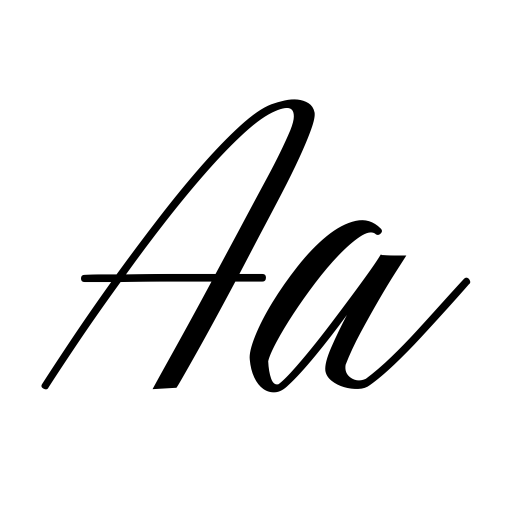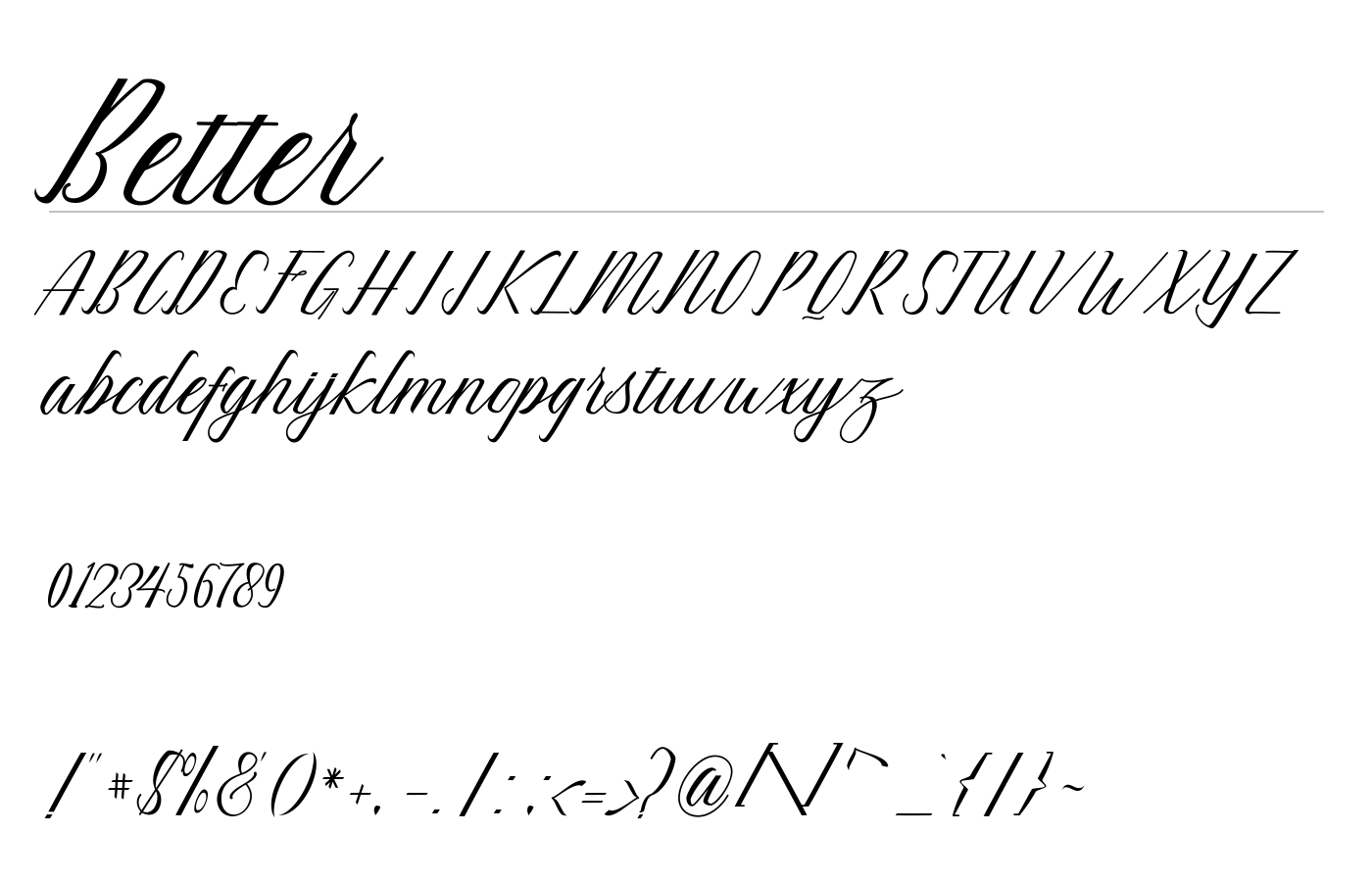
Better Font is an elegant and refined script typeface with a slender, flowing design that conveys sophistication and grace. Its high contrast strokes and delicate curves make it ideal for formal invitations, luxury branding, and stylish editorial headlines where a touch of classic charm and fluidity is desired. This font shines best in decorative uses, adding a polished and cultured feel to any project.
Better Font